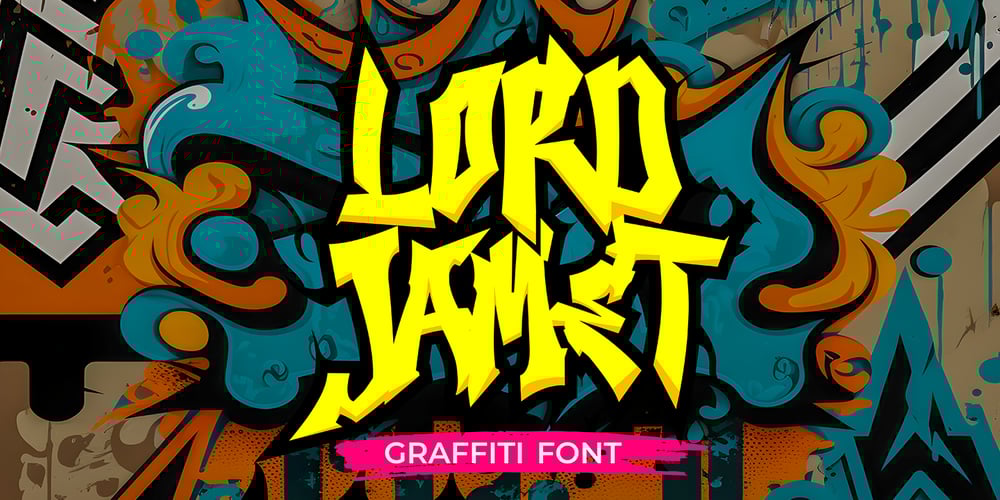
Lord Jamet Graffiti
Lord Jamet Graffiti font
Lord Jamet Graffiti Font Family was designed by Sipanji and published by Sipanji21. Lord Jamet Graffiti contains 1 styles and family package options. “Lord Jamet” is an urban graffiti font characterized by sharp edges and a bold look. Ideal for music posters, apparel designs, shirts, and streetwear, this font brings a touch of edginess to your projects. The unique style of “Lord Jamet ” makes it the perfect choice for death metal or urban graffiti themes. Whether you want to create a strong and powerful statement or simply add a touch of attitude to your designs “Lord Jamet ” is the font for you.